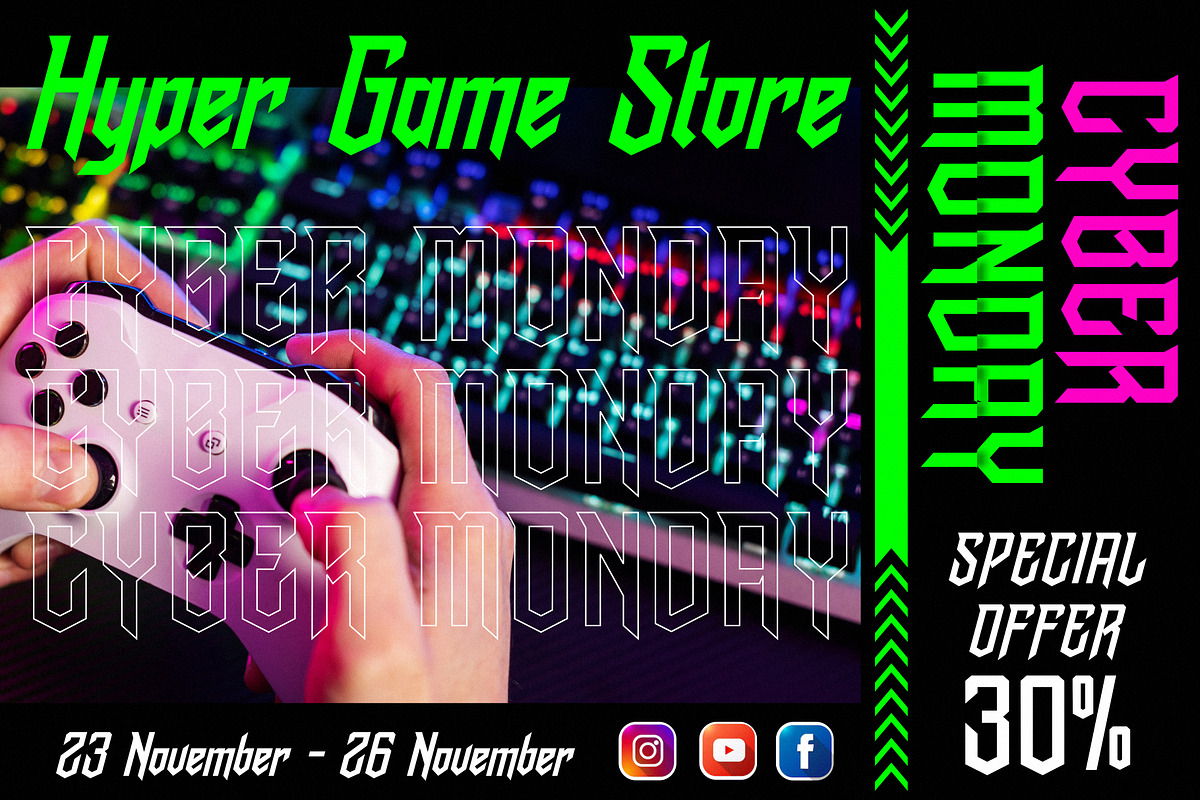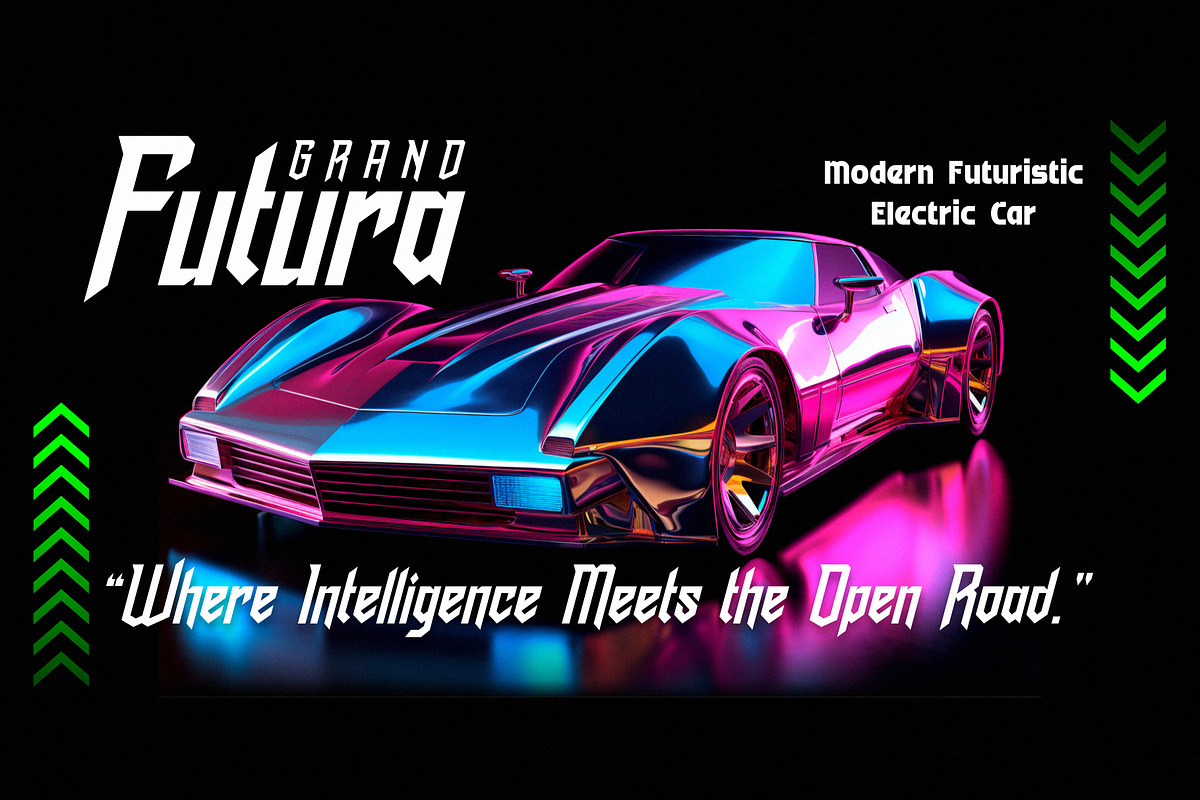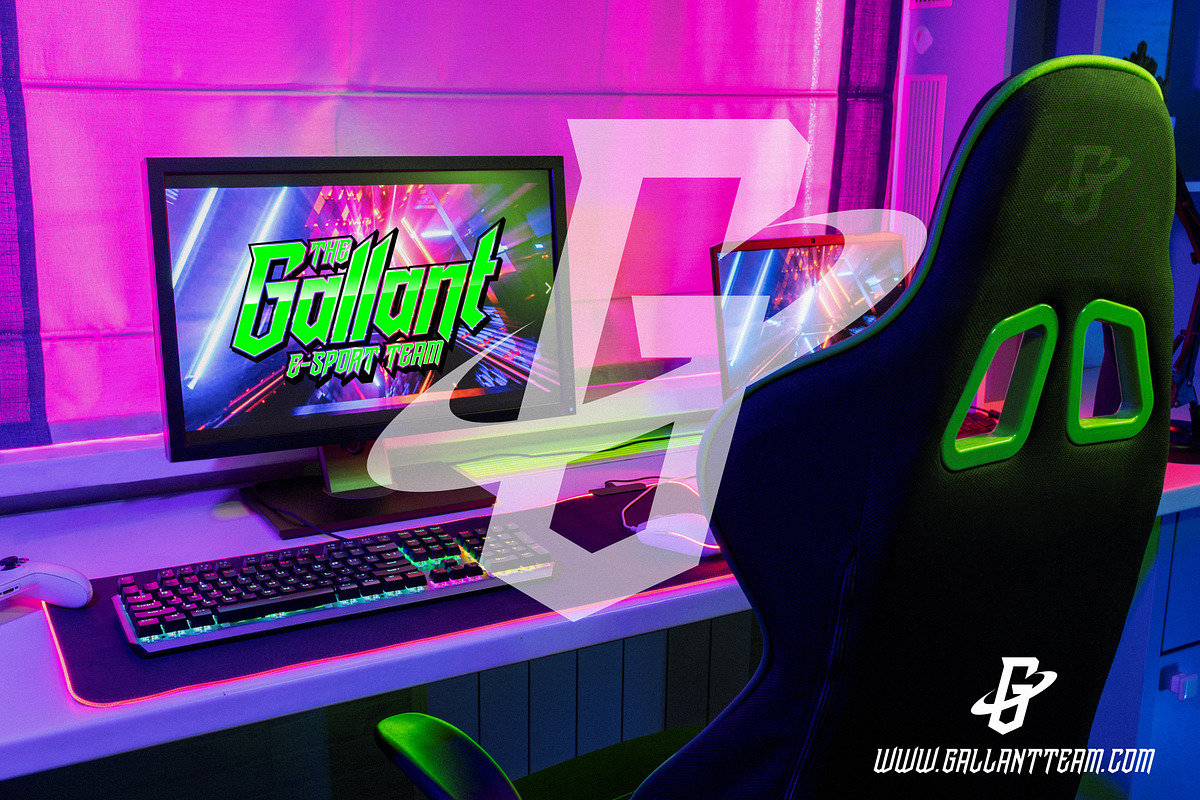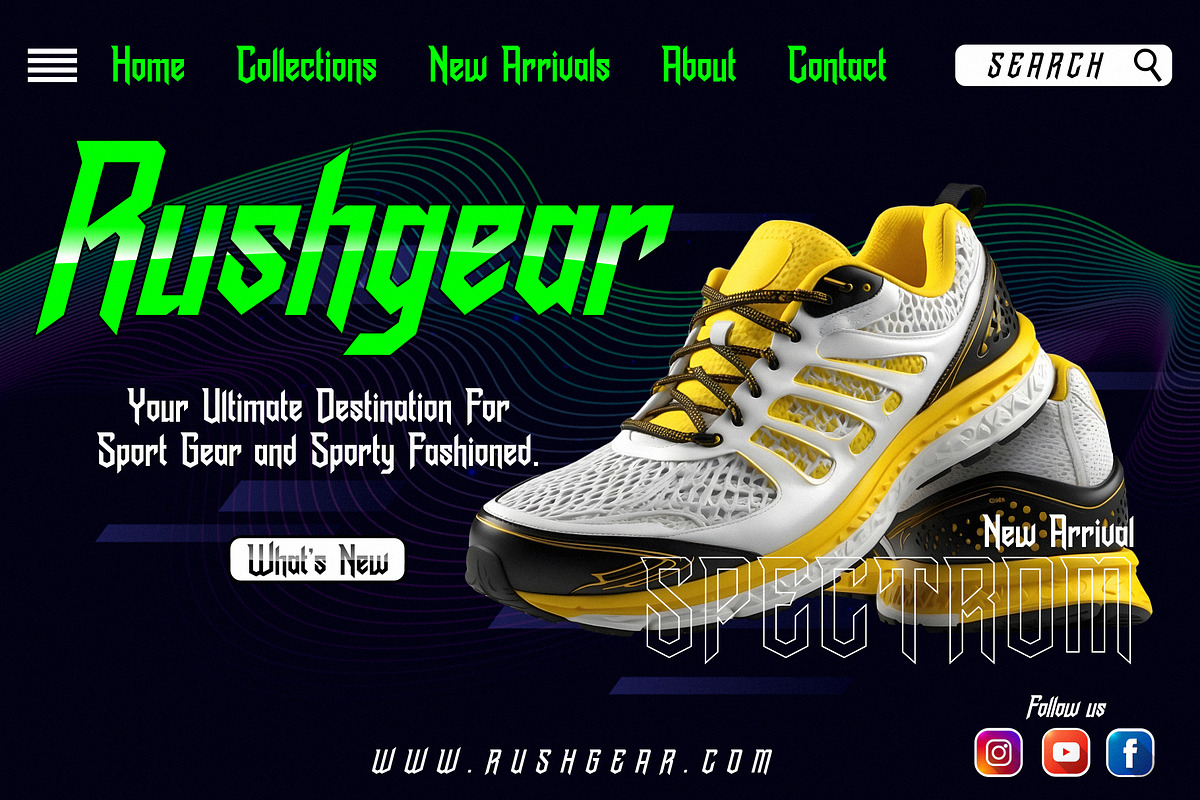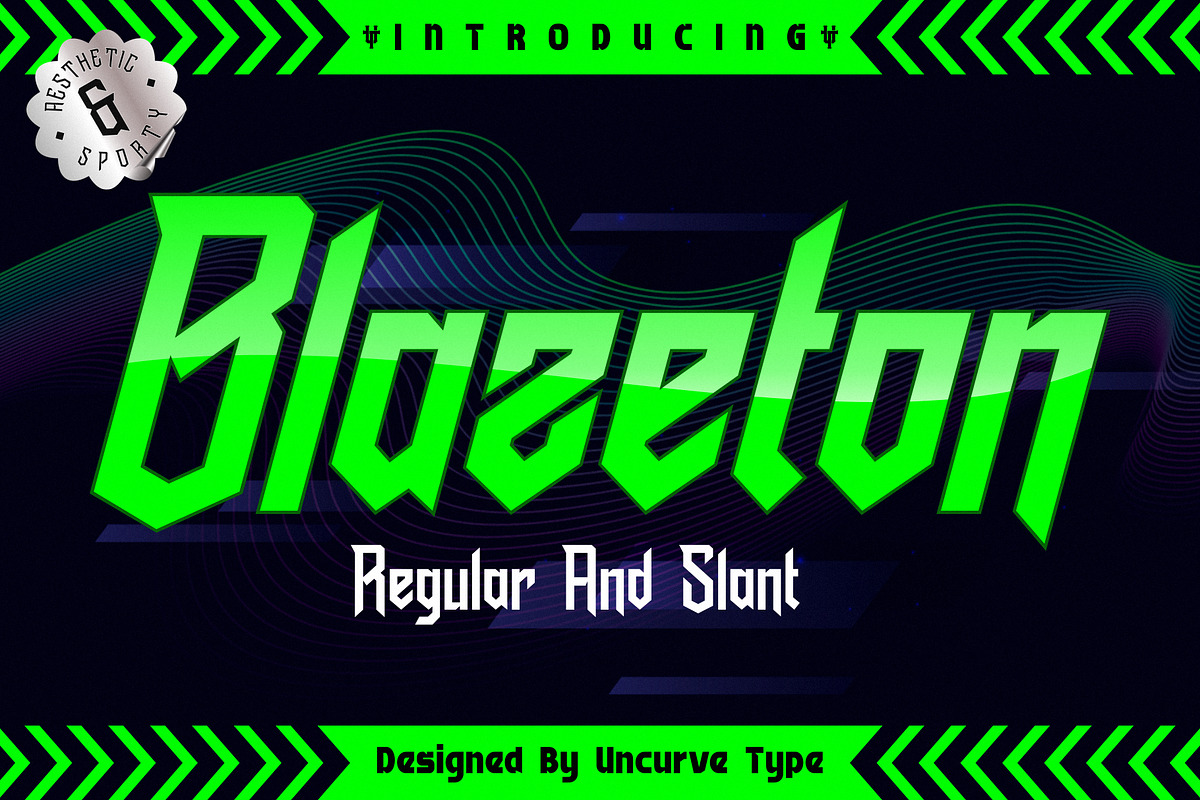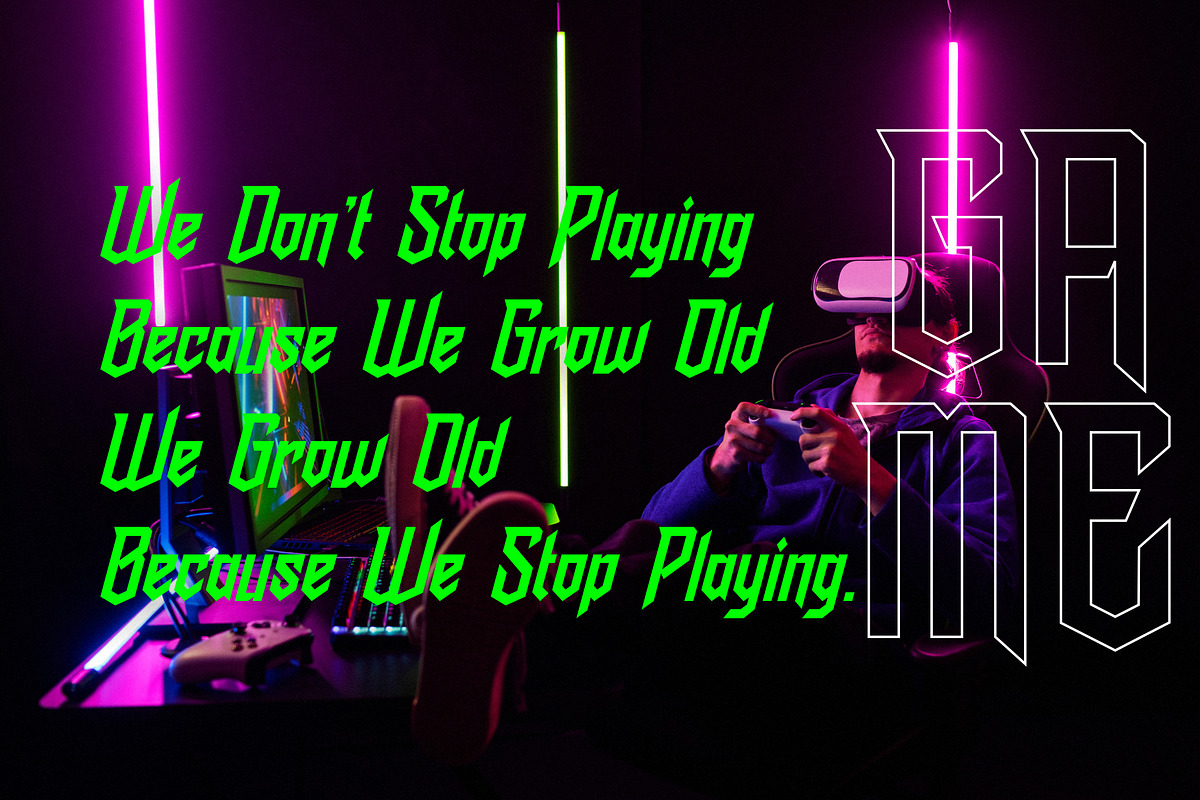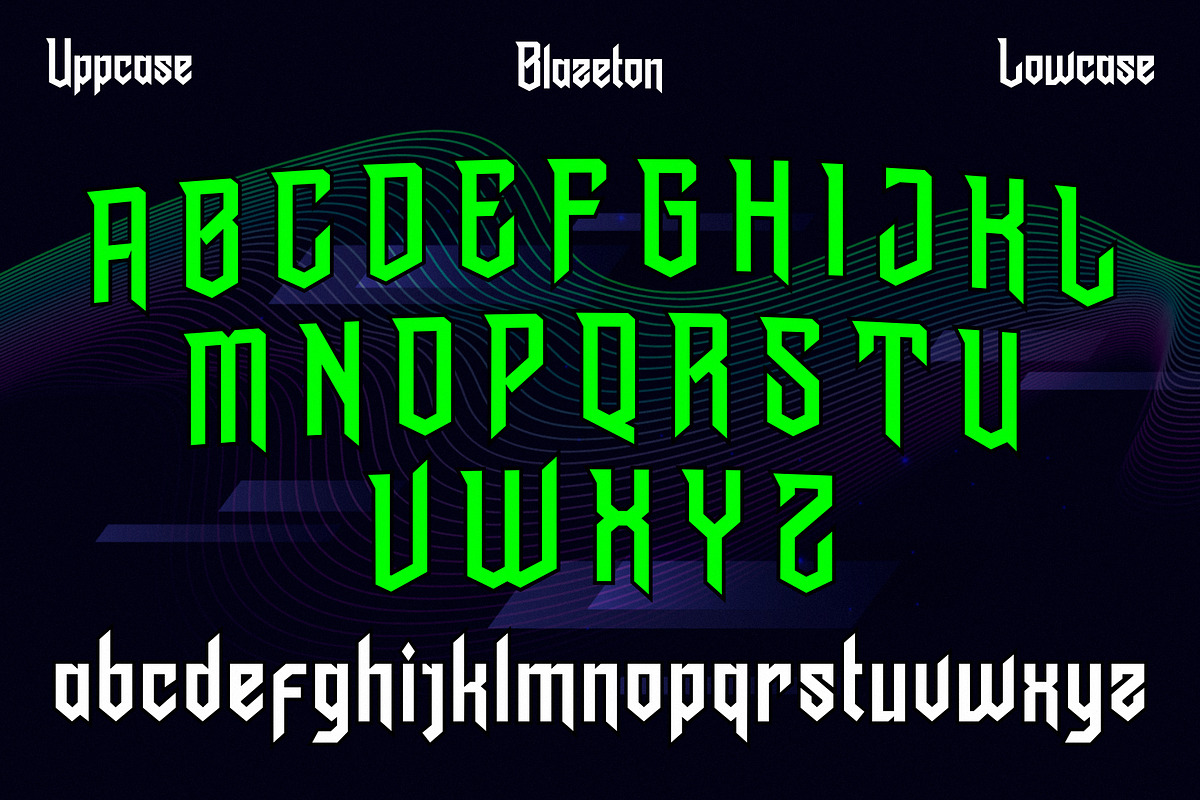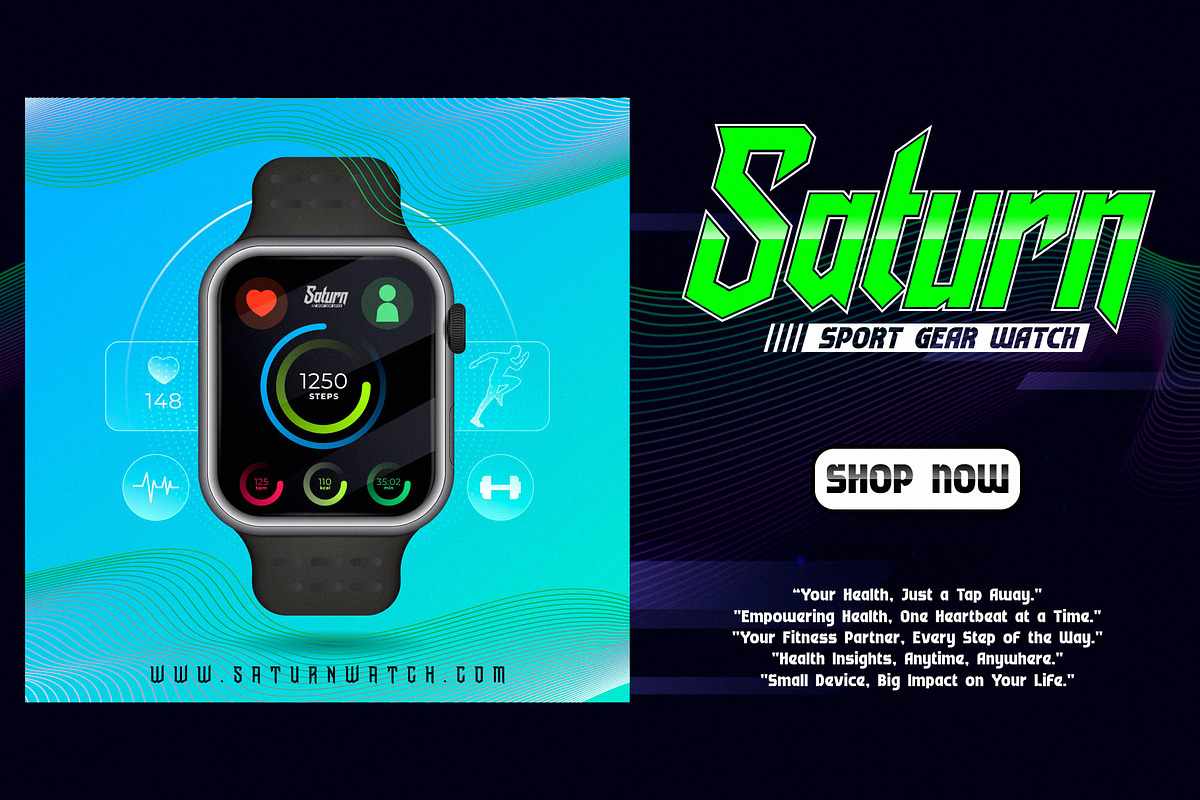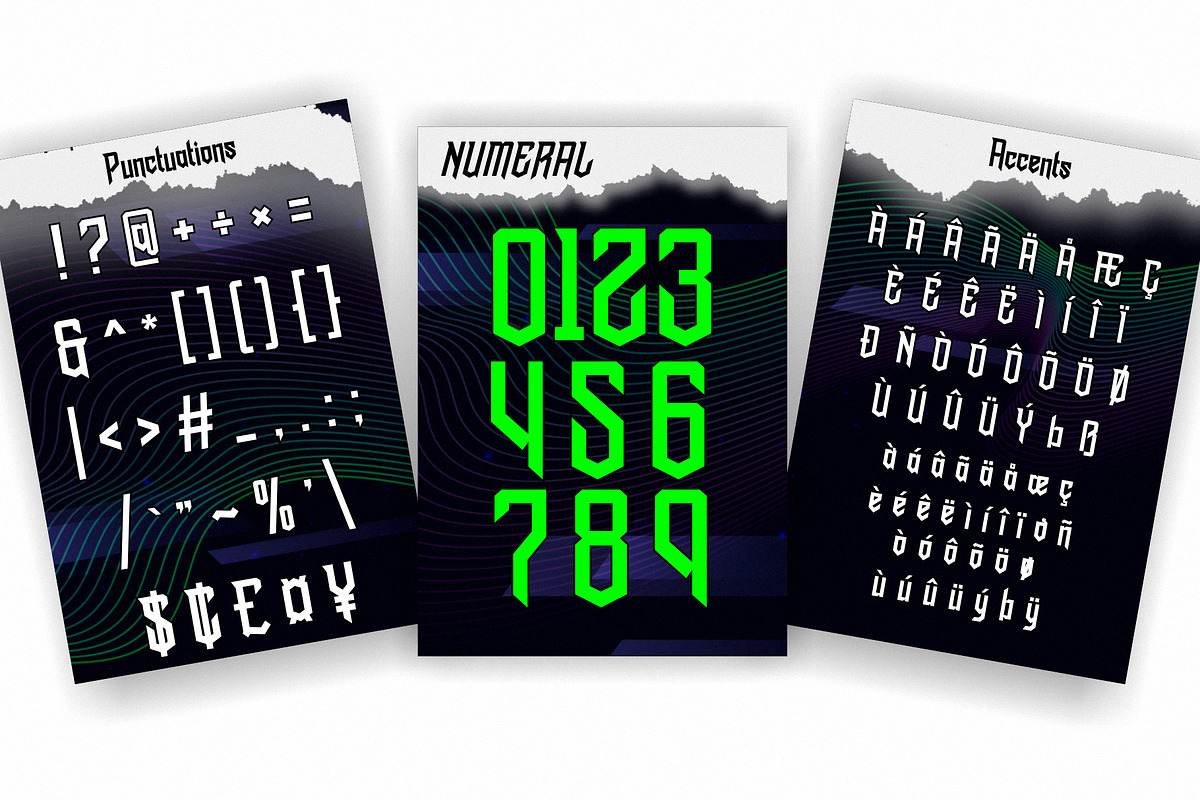
Blazeton
introducing Blazeton a sleek and modern futuristic font crafted to bring energy and a cutting-edge look to any design. With two styles—Regular and Slant—Blazeton offers versatility and an ideal combination for creating high-impact visuals that stand out. Inspired by the sharp lines of modern sports and the adrenaline of racing posters, Blazeton is designed to capture speed, precision, and strength.
Blazeton is perfect for authentic logos, sporty designs, flyer layouts, posters, and branding. Its dynamic style fits seamlessly in magazines, book covers, race posters, apparel, titles, brochures, labels, and product packaging. Ideal for automotive themes, this font shines on websites, social media posts, sport events, t-shirts, modern watches, cars, motorcycles, and garage branding. Whether you’re creating bold headlines, sleek headers, or powerful statements, Blazeton adds a futuristic touch to elevate any project.
In summary, Blazeton is a versatile, modern font with a bold, futuristic edge, perfect for all things automotive, sporty, and high-tech. Its Regular and Italic styles make it a go-to choice for anyone looking to bring a sharp, stylish aesthetic to logos, posters, packaging, and more.